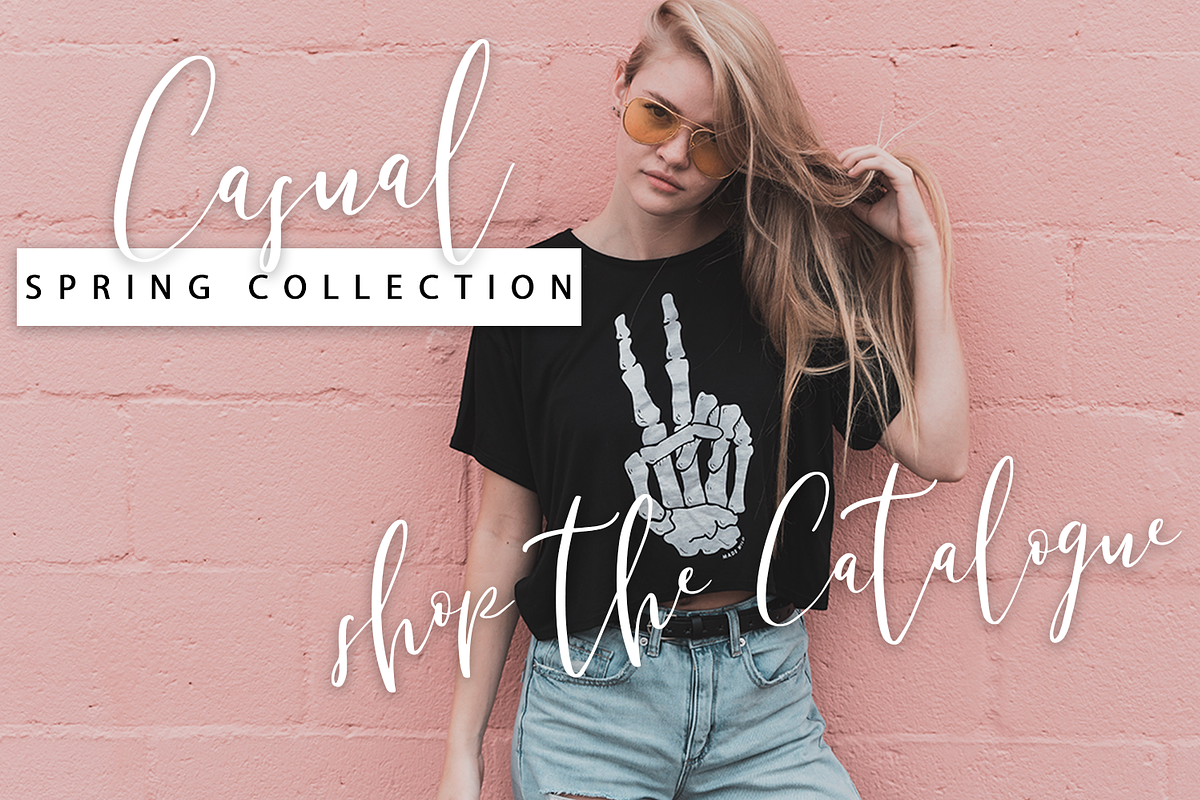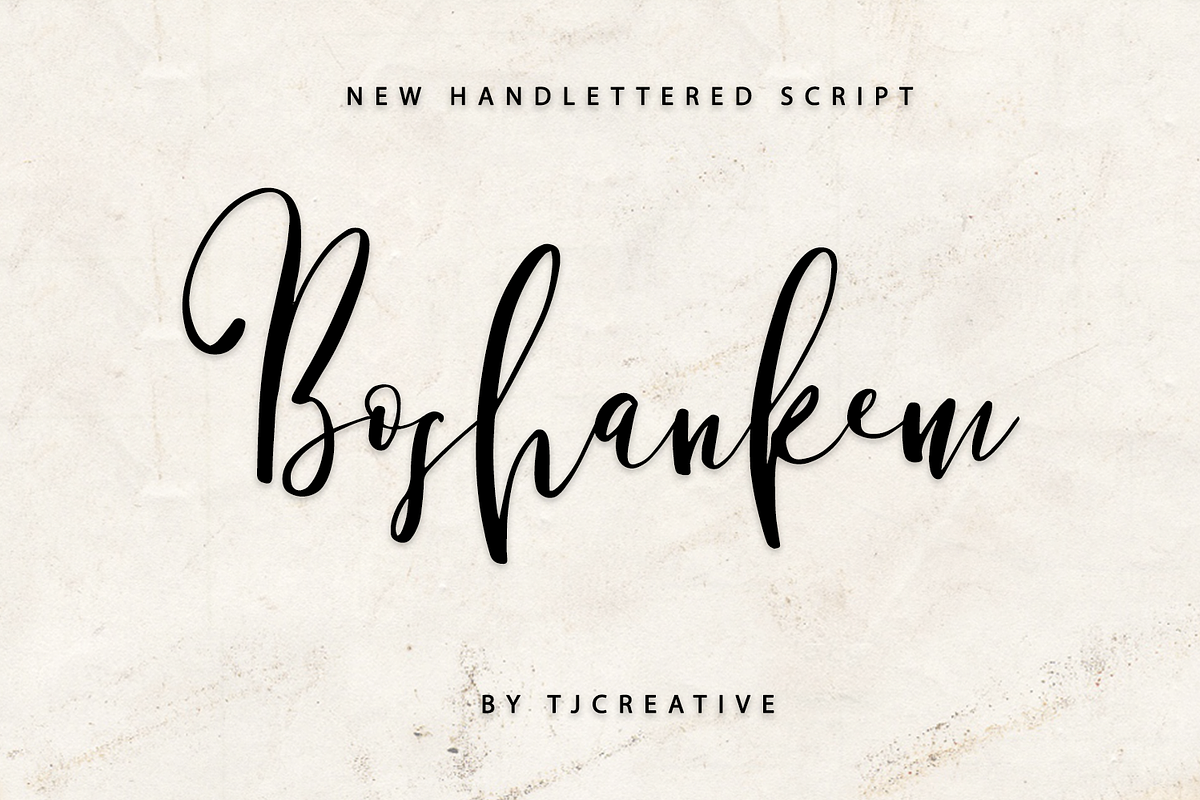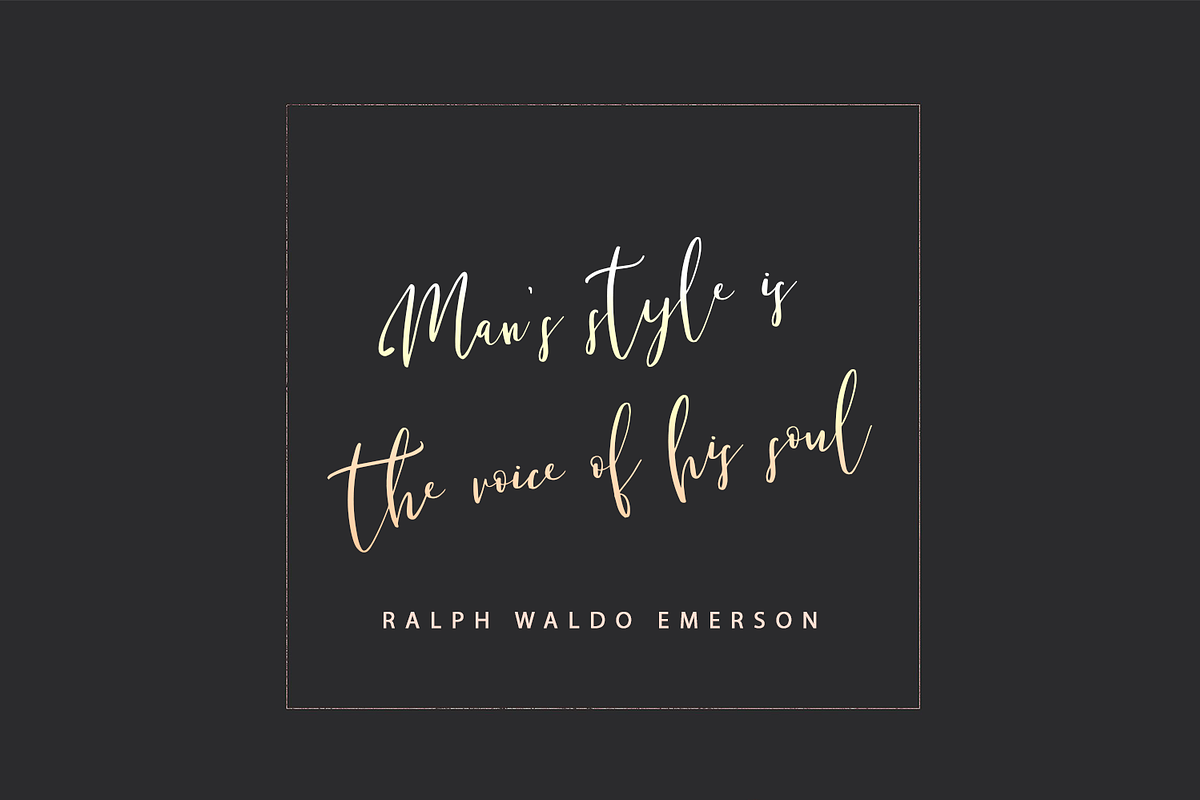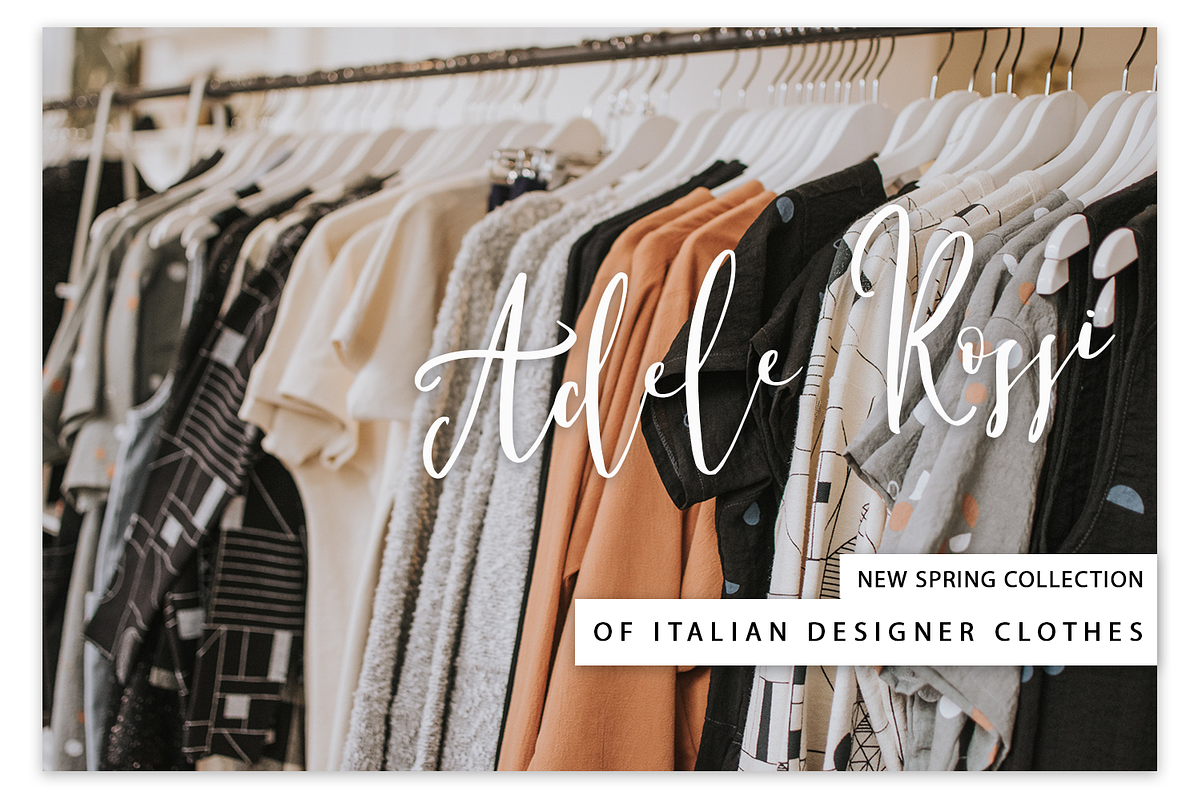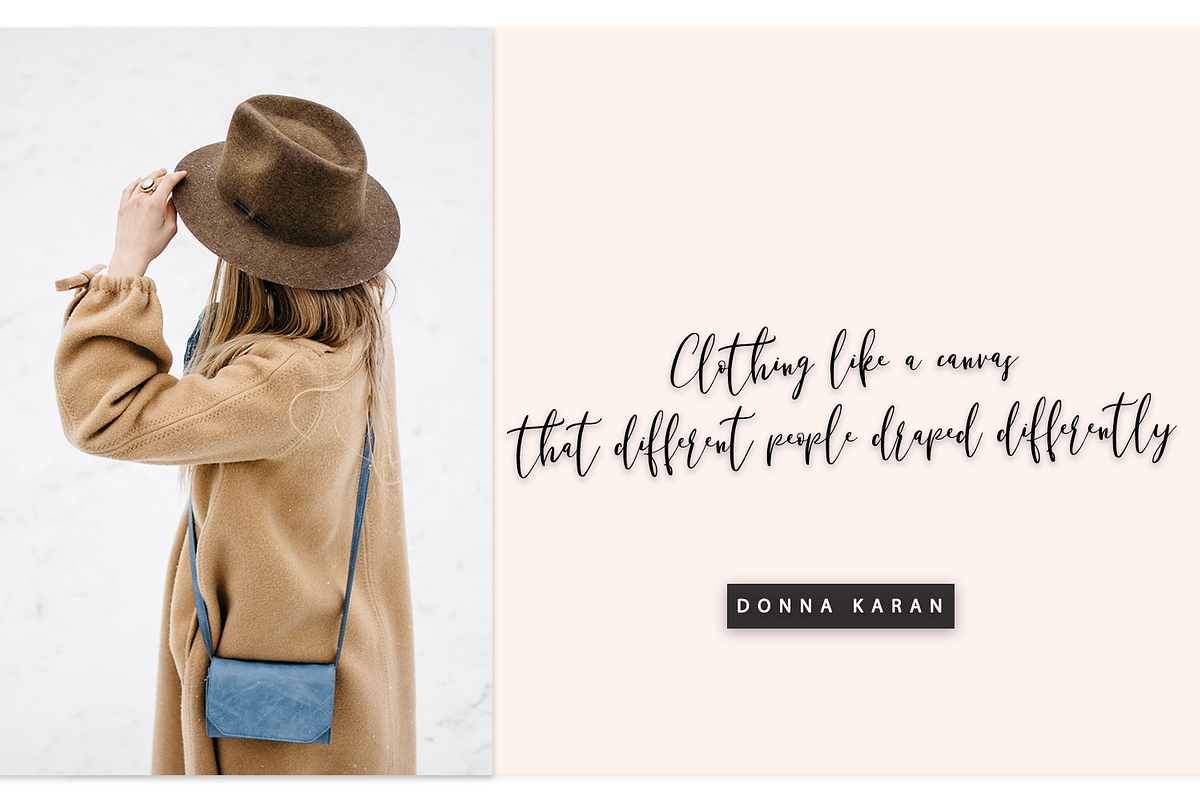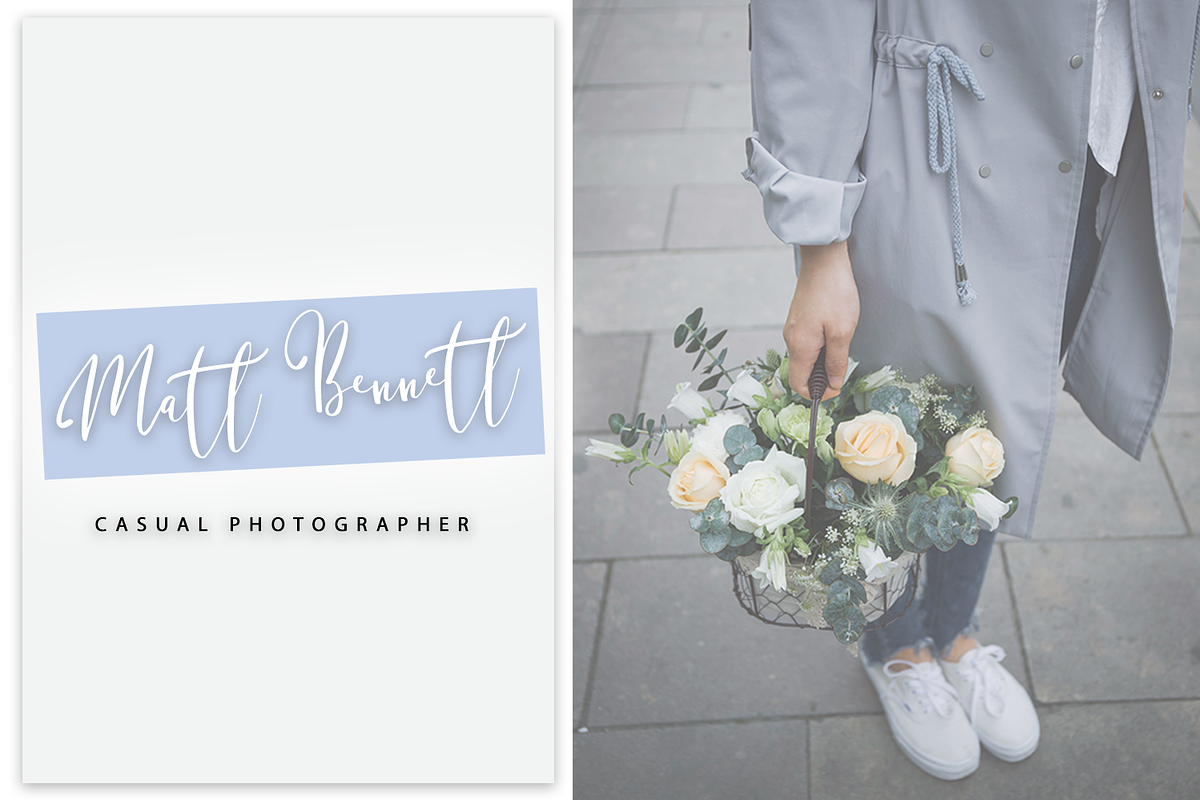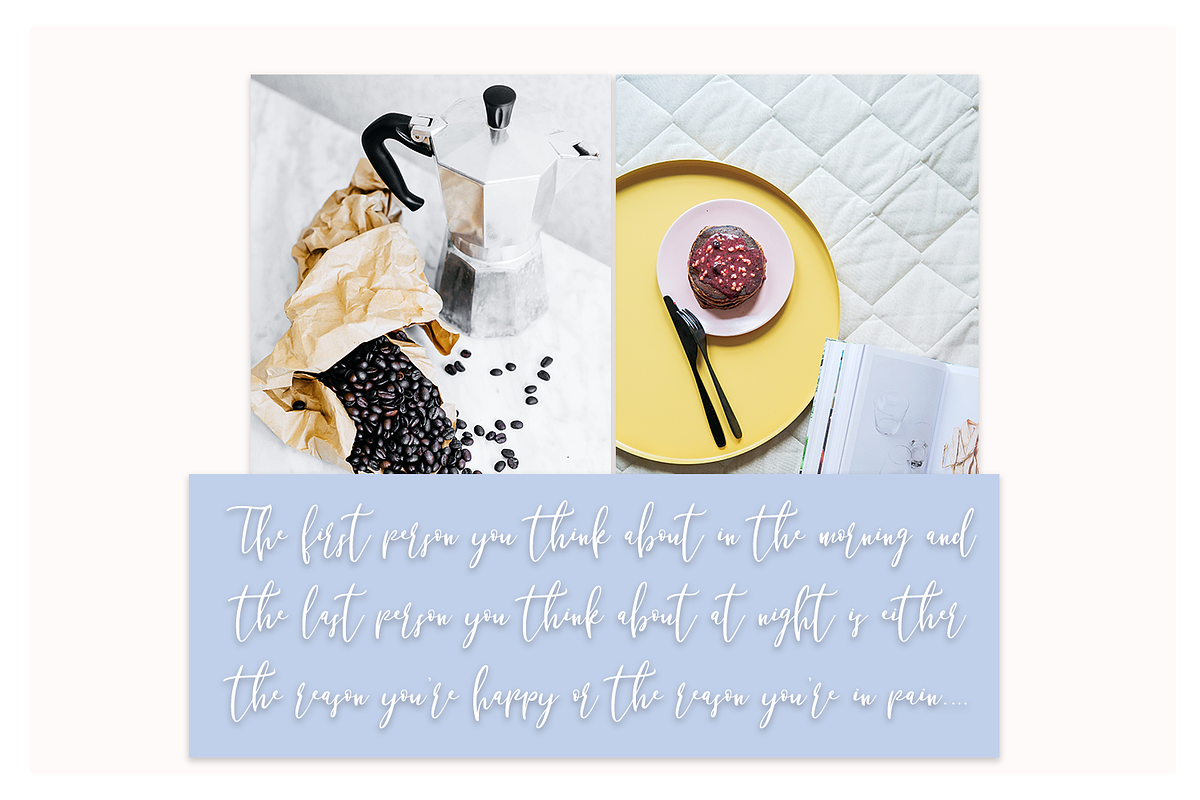
Boshankem - Script font
Boshankem - a new fresh handmade calligraphy font.
Very suitable for greeting cards, branding materials, business cards, quotes, posters, and more!This font are perfect for wedding postcard. Or you can create perfect and unique design of your logo, blog, stationery, marketing, magazines and more :)
aa bb ee ff ll mm oo pp rr ss th tt
Boshankem - Script font by Quothron fits naturally into Branding, posters, packaging, typography.